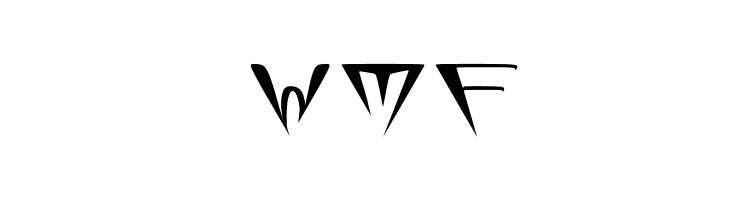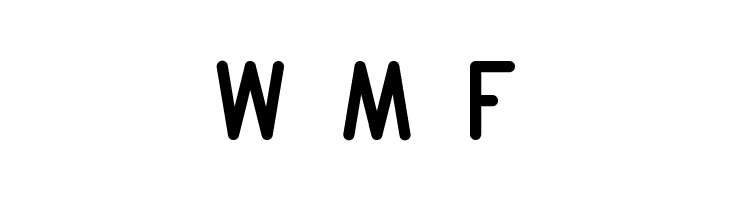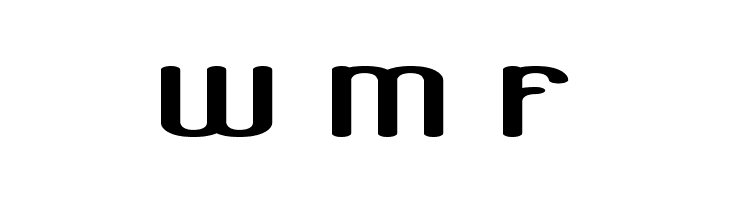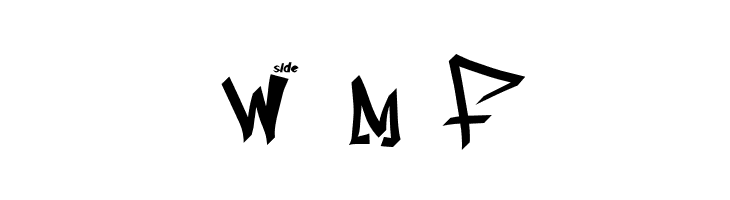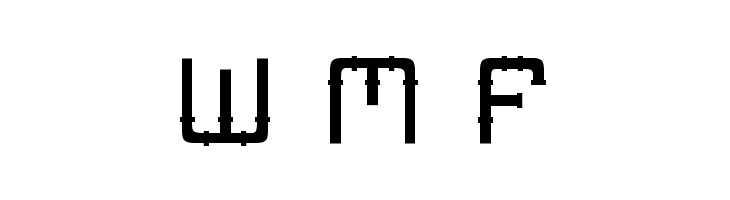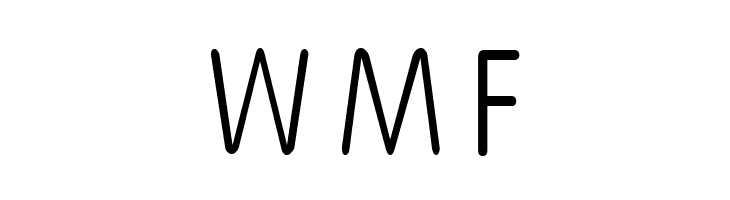
( Fonts by AEnigma - www.aenigmafonts.com )
A playful, rounded font with smooth curves and uniform strokes.
A bold, rounded, and italicized font with a modern and friendly style.
( Fonts by Steve Cloutier - www.cloutierfontes.ca )
A bold, rounded, and modern font with a playful and approachable style.
A modern, geometric font with rounded edges and bold, uniform strokes.
A bold, graffiti-inspired font with sharp, angular lines and an urban aesthetic.
( Fonts by www.varian.net )
A modern, rounded sans-serif font with a clean and approachable design.